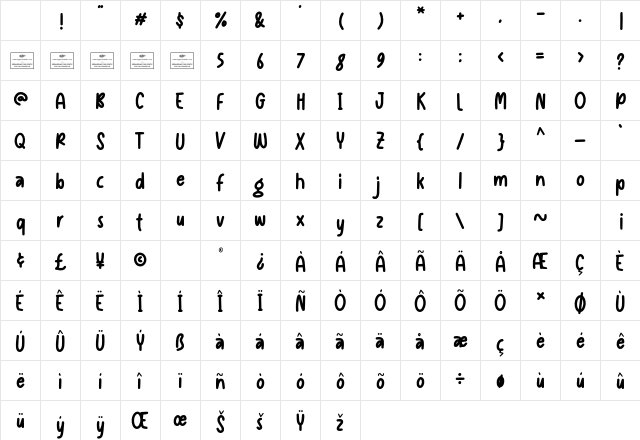
Complete Oakley Ridge Regular glyph index. Displaying only characters natively supported by Oakley Ridge Regular font.
Oakley Ridge is a composed and adaptable typeface that performs quietly and consistently across a wide range of design contexts.
Who designed the Oakley Ridge Regular font?